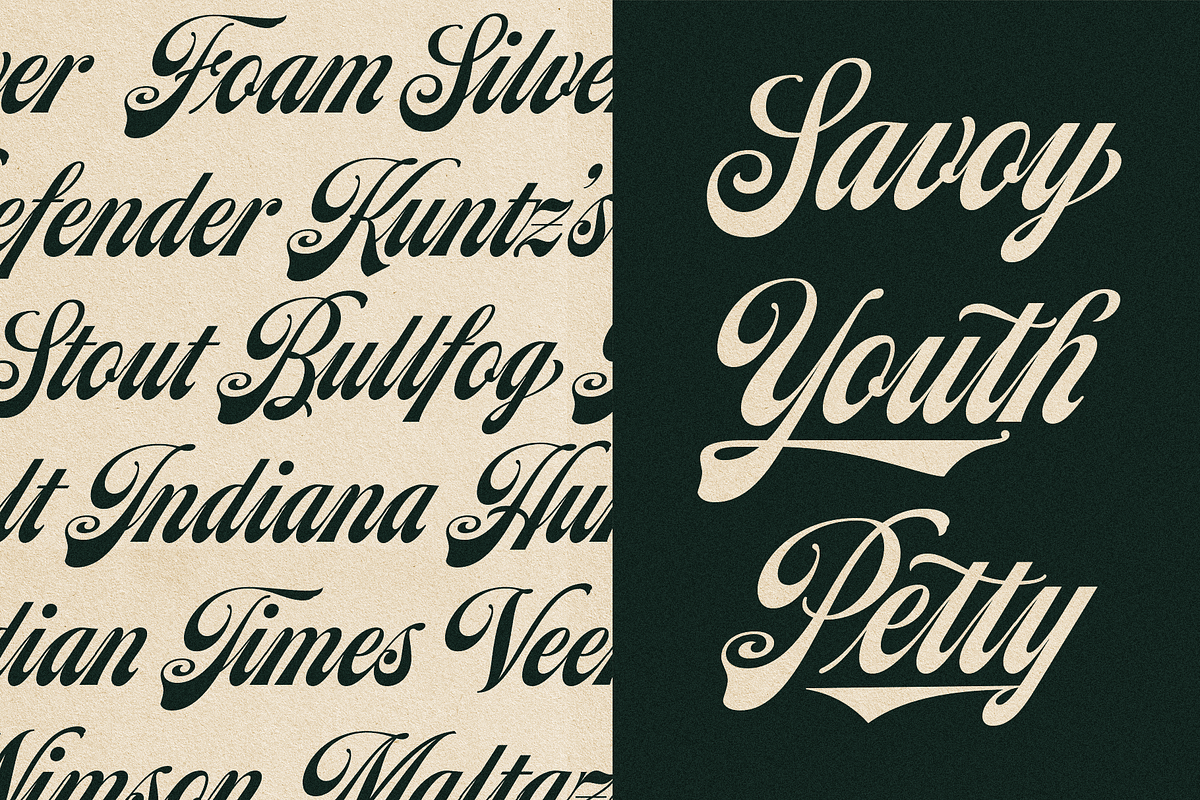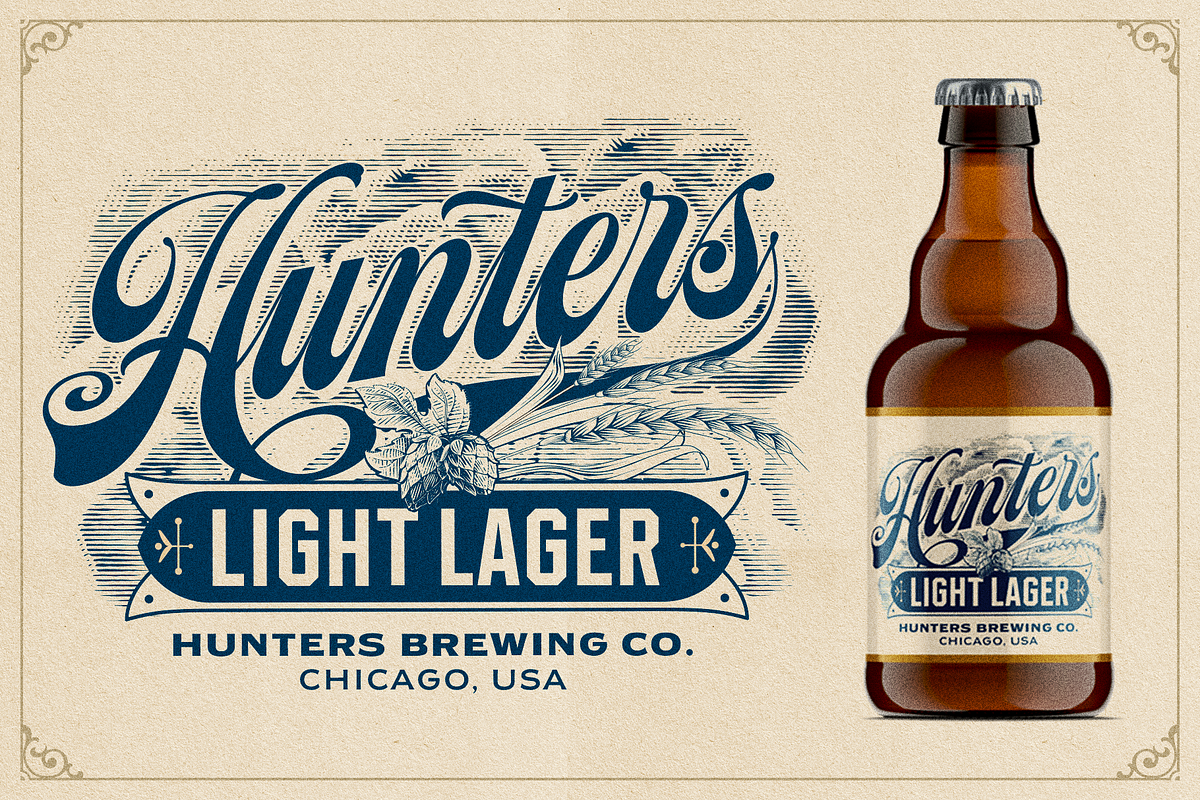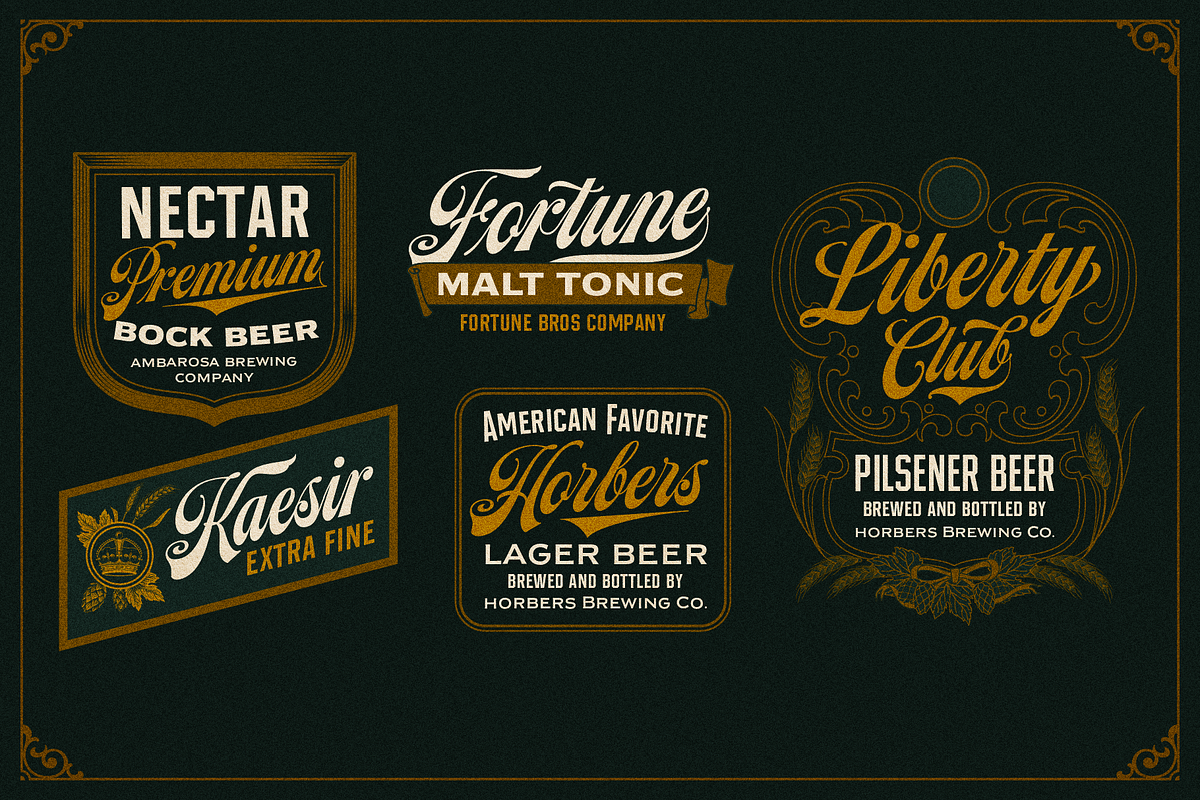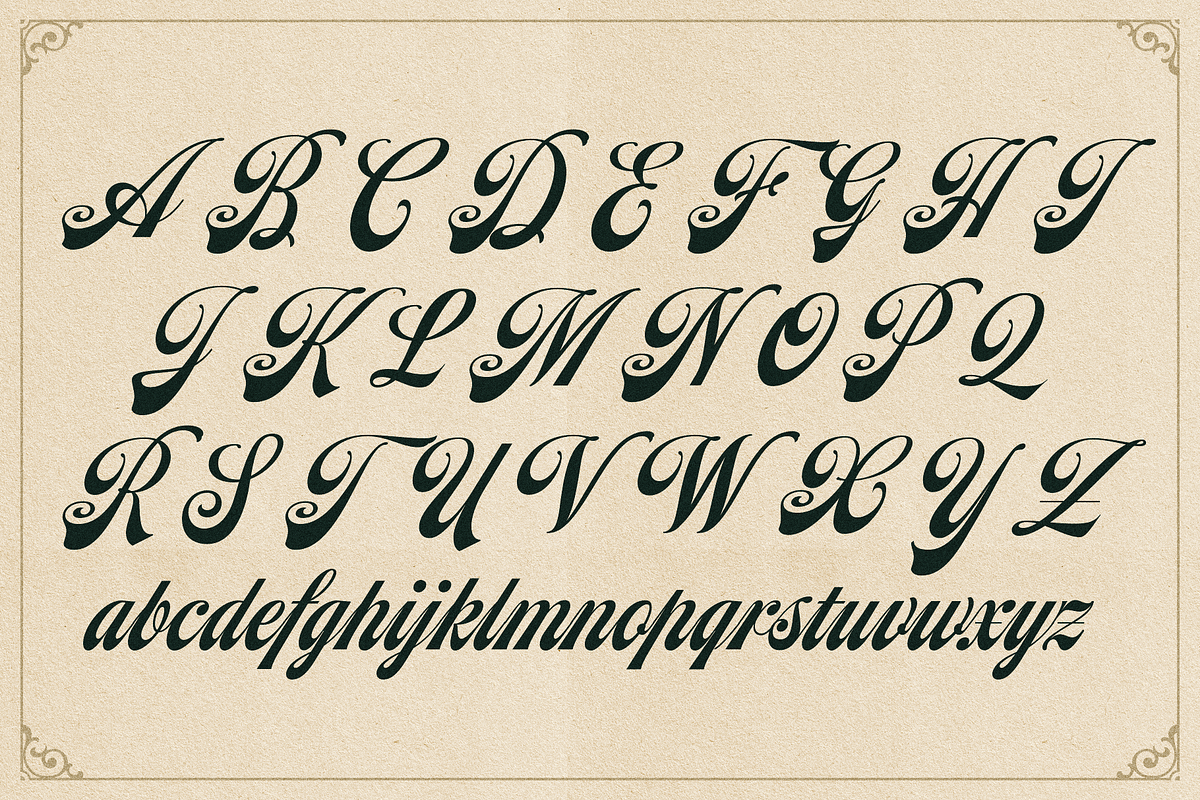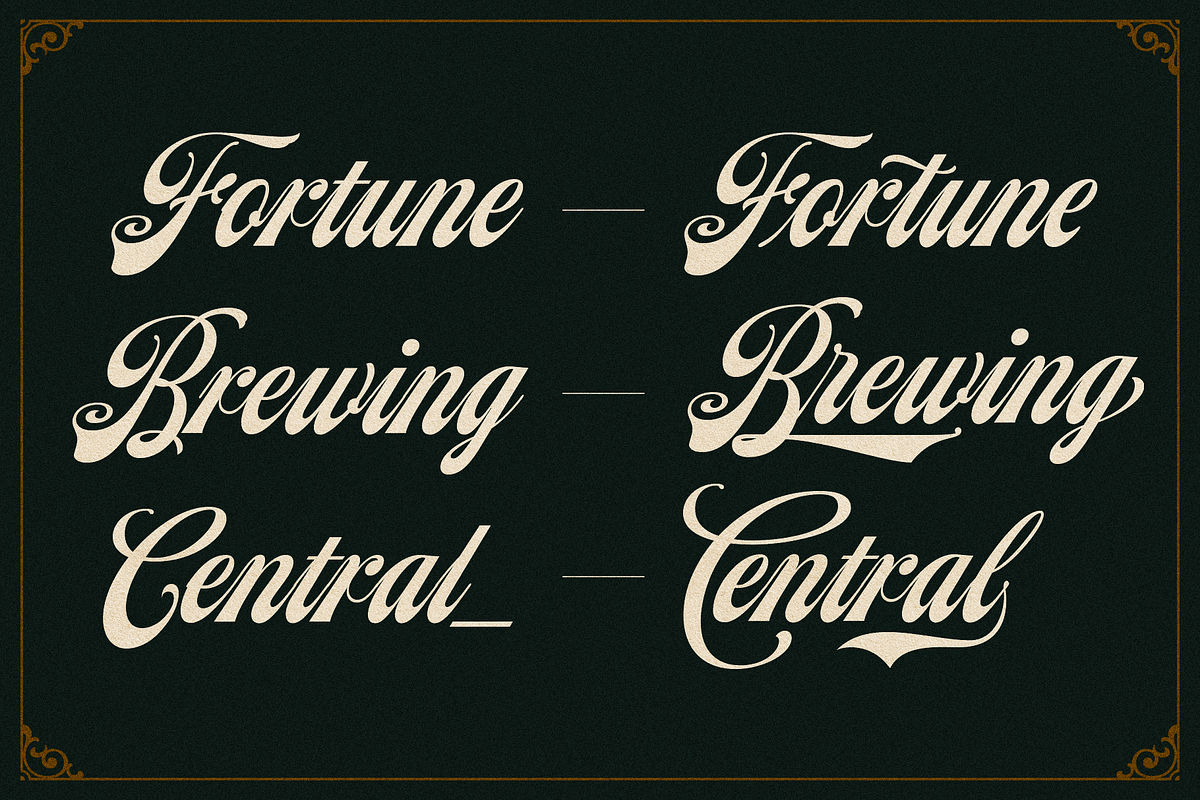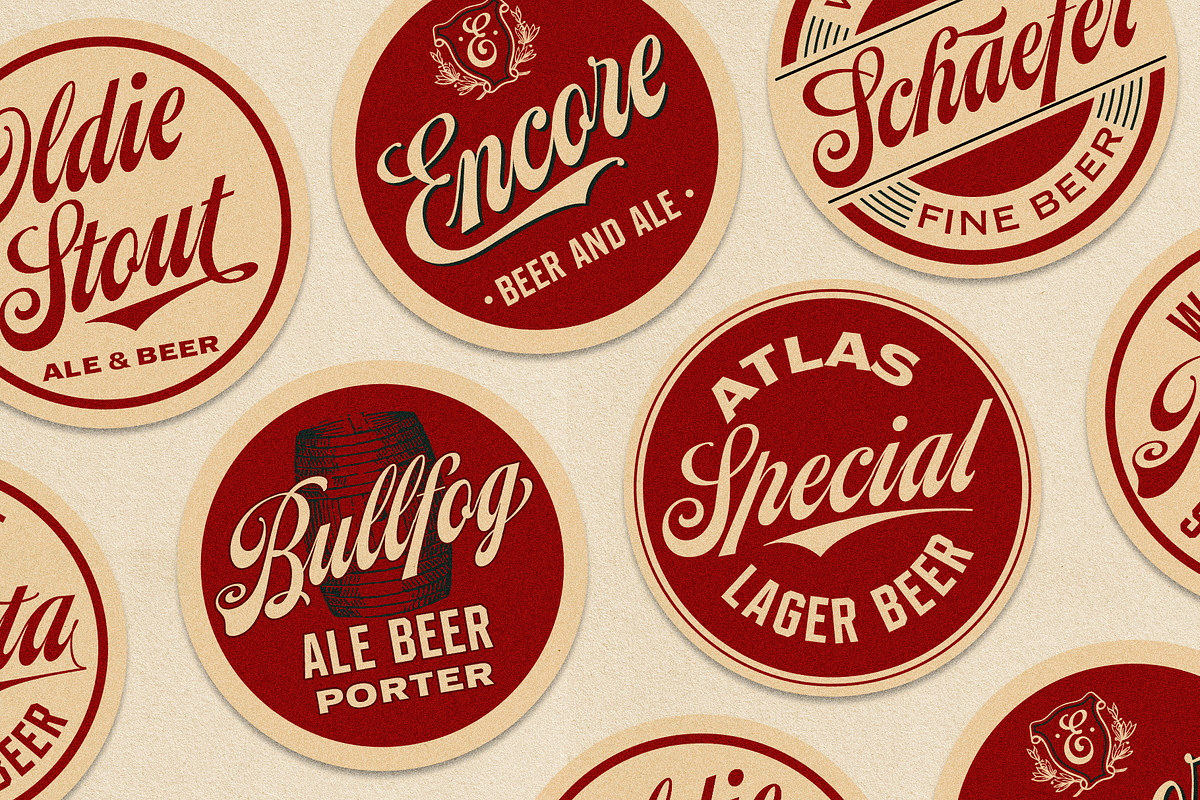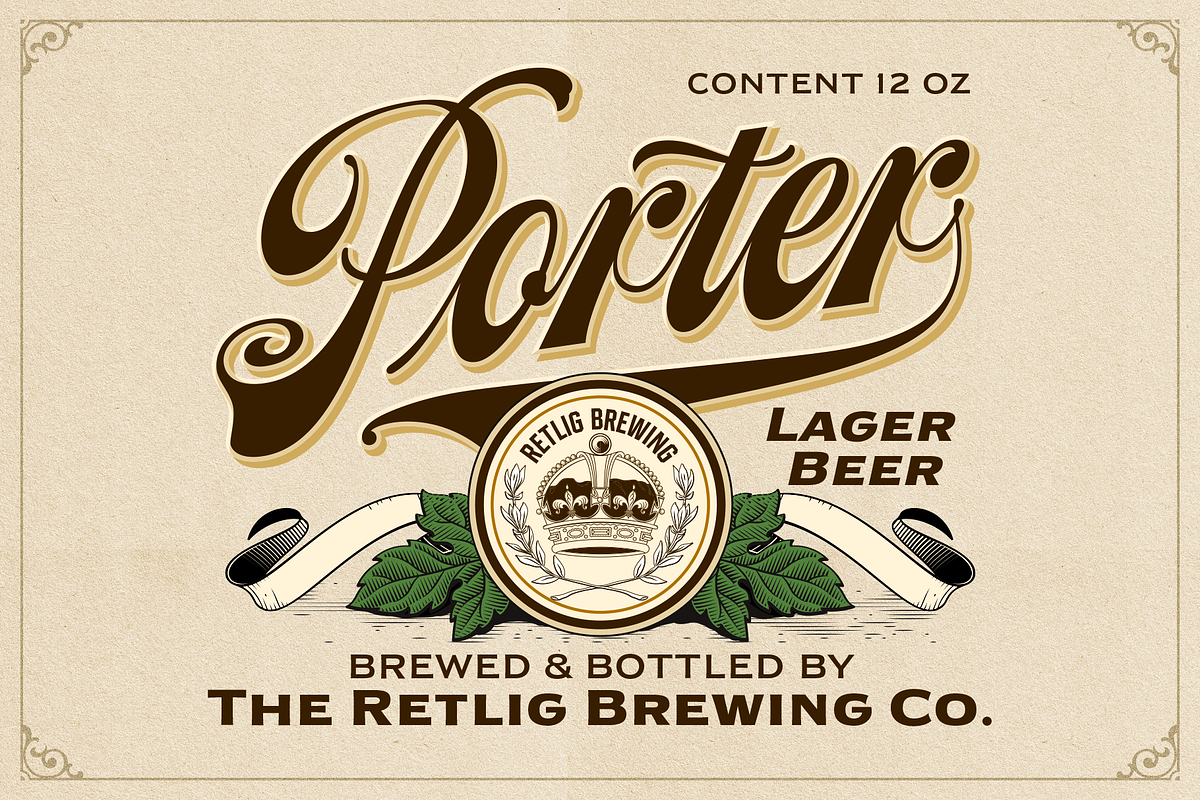
Moister Font Collections
Introducing Moister Font Collection, fonts inspired by beer labels in old days. This collection comes with 4 styles, scripts, blocks, and expanded regular and bold, possible to combination and options to create label designs, headlines, logotypes, signage, posters, greeting cards, letterheads, t-shirts and many more applications.
- Moister script (PUA encoded)
- Moister Block
- Moister Expanded Regular
- Moister Expanded Bold